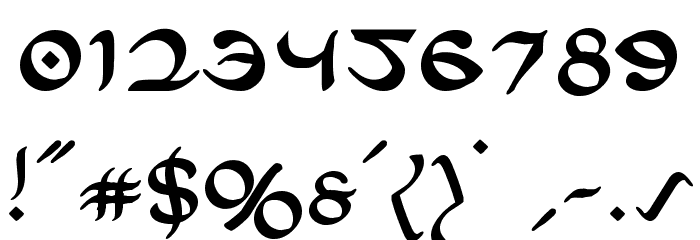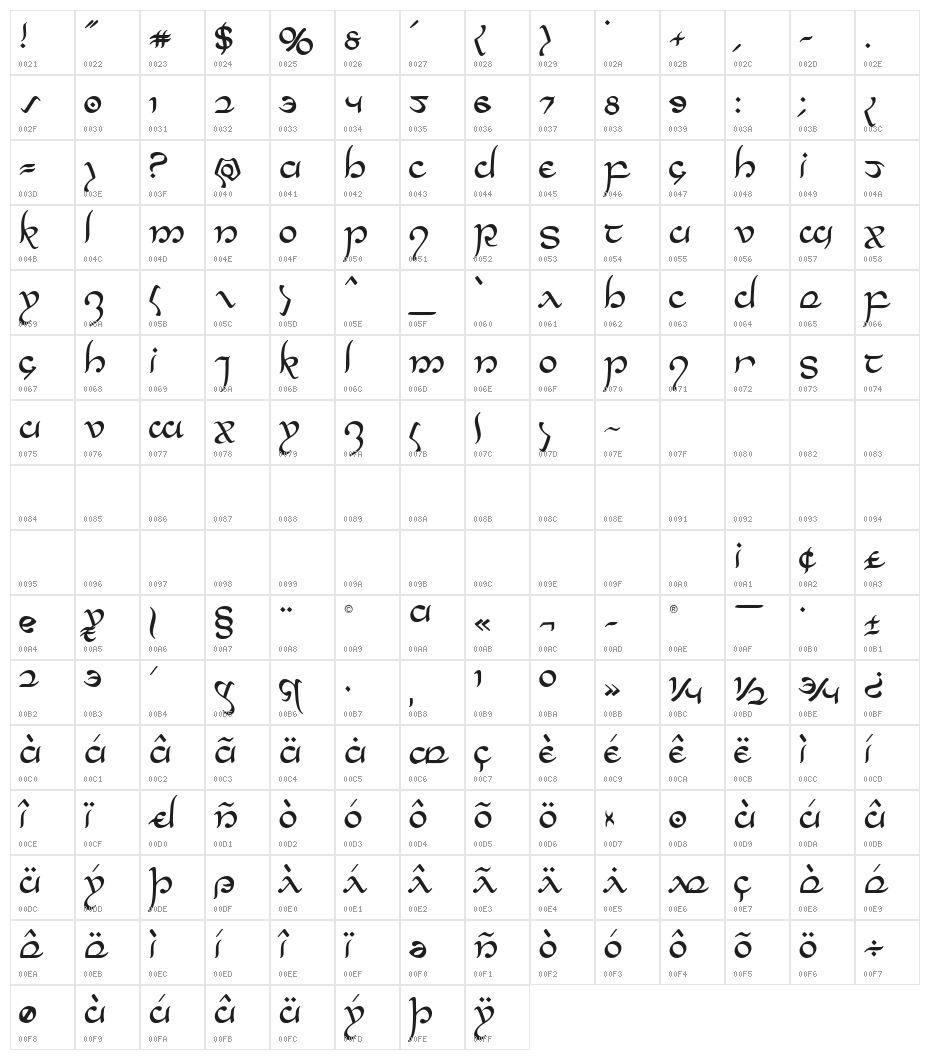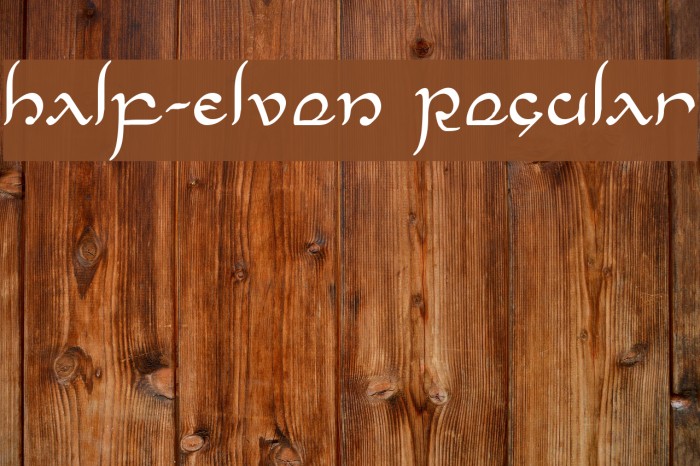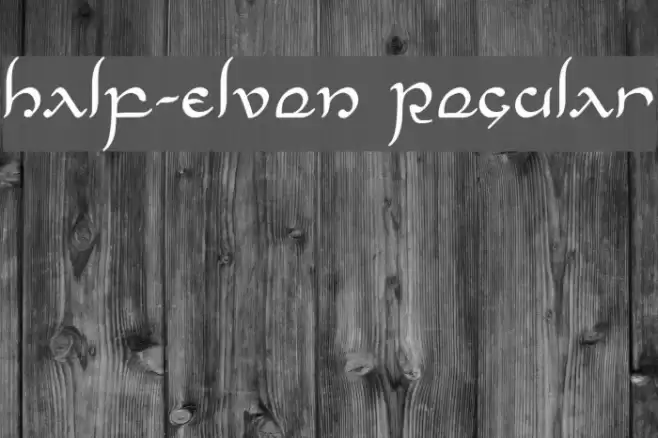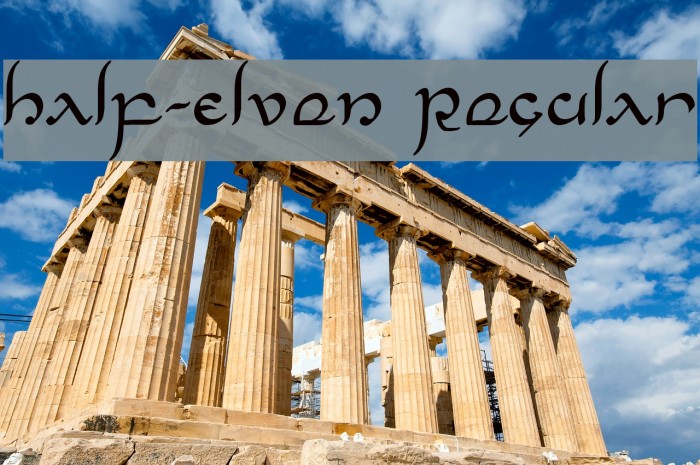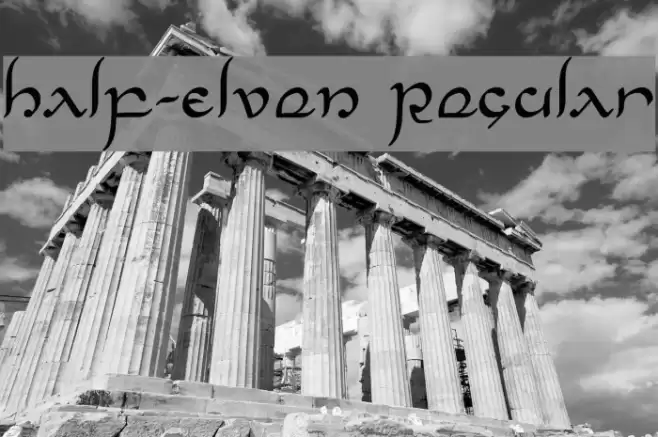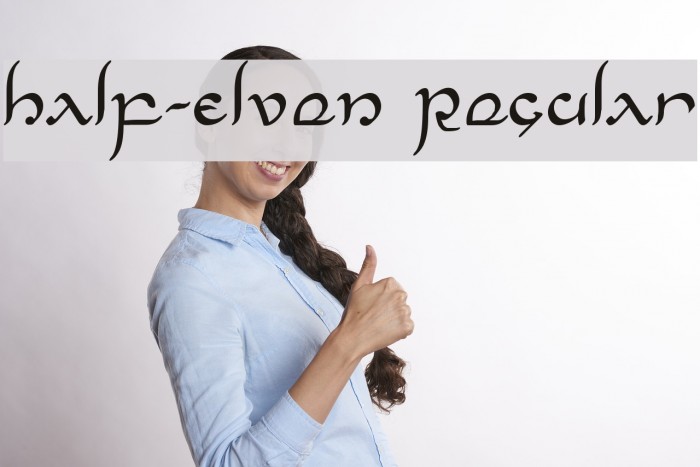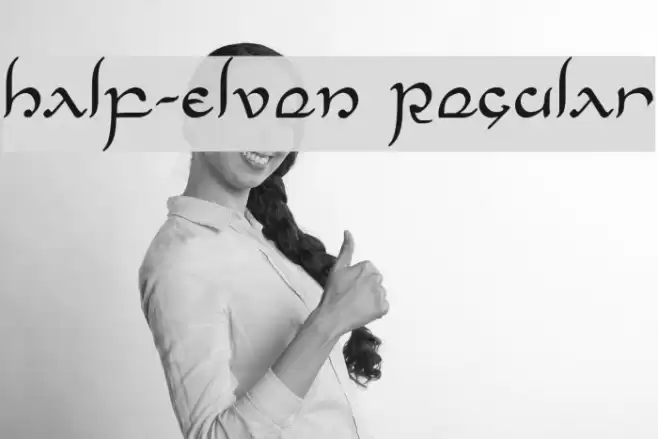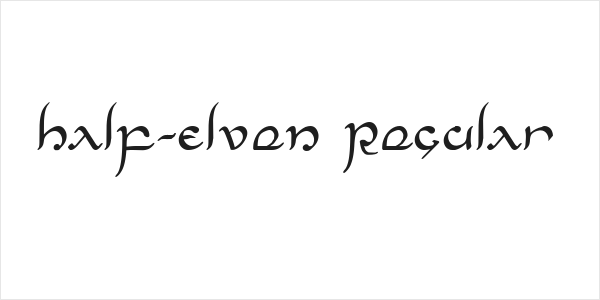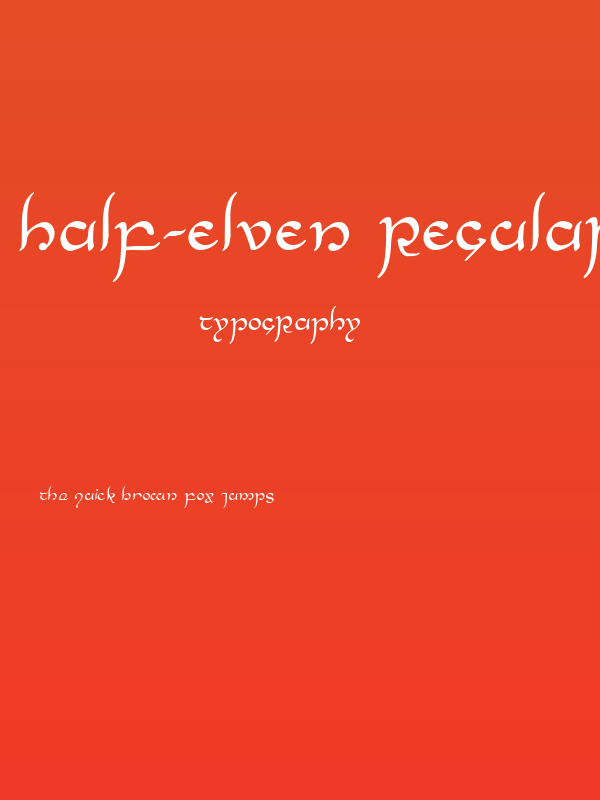
Half-Elven Regular Font
Half-Elven Regular Description
This font features a unique, flowing design that evokes a sense of fantasy and elegance. The characters are crafted with intricate curves and flourishes, reminiscent of elven or mythical scripts. Each letter has a distinct personality, with elongated strokes and decorative elements that create a whimsical and enchanting appearance. The numbers and special characters maintain this stylistic consistency, adding to the overall cohesive look. This font is perfect for projects that require a touch of magic and sophistication, such as fantasy novels, themed events, or artistic branding.
| Overall Style | Fantasy, Decorative |
| Use Case | Headlines, Logos, Creative designs |
| Proposed Projects | Ideal for fantasy novels, themed events, artistic branding, and creative designs. |